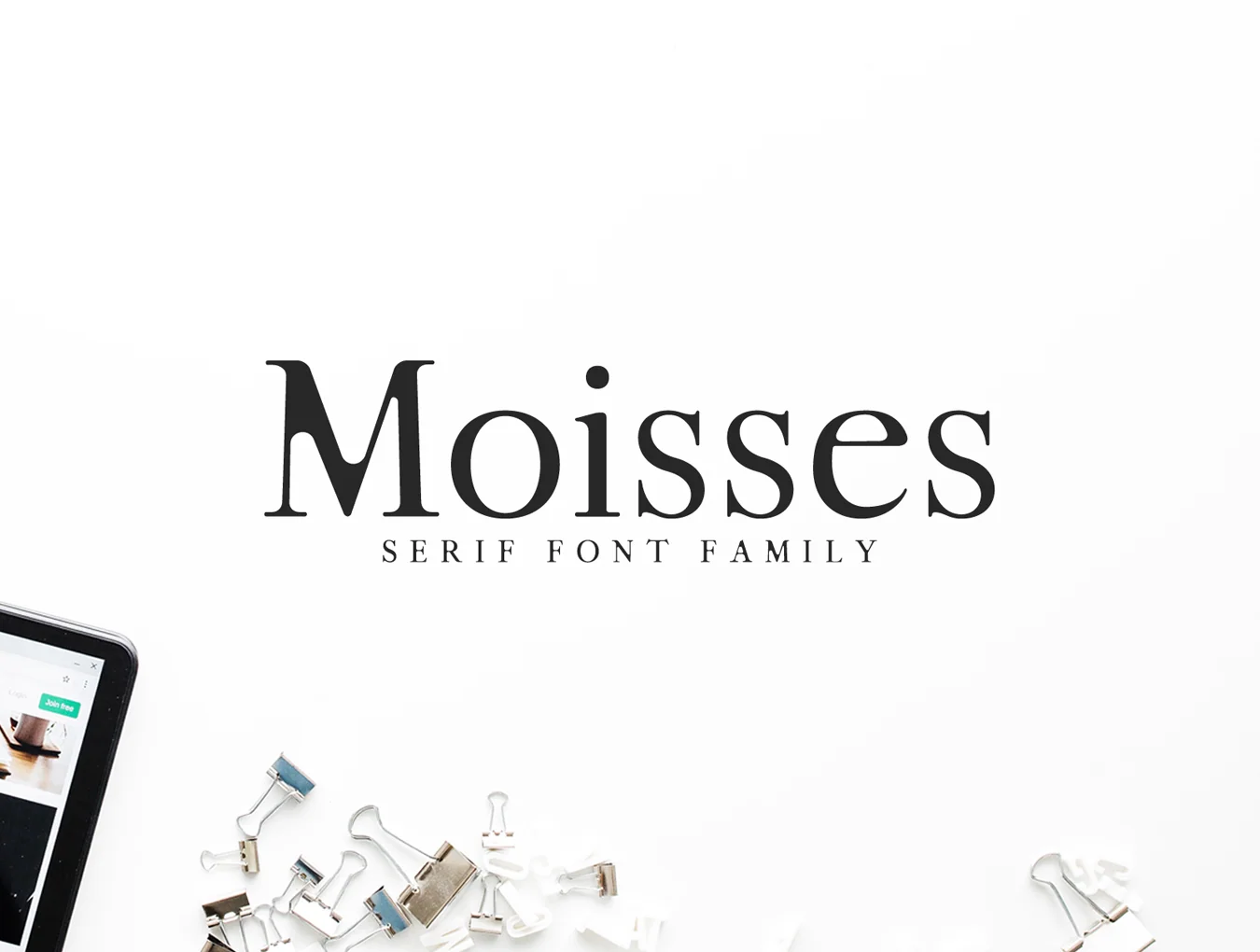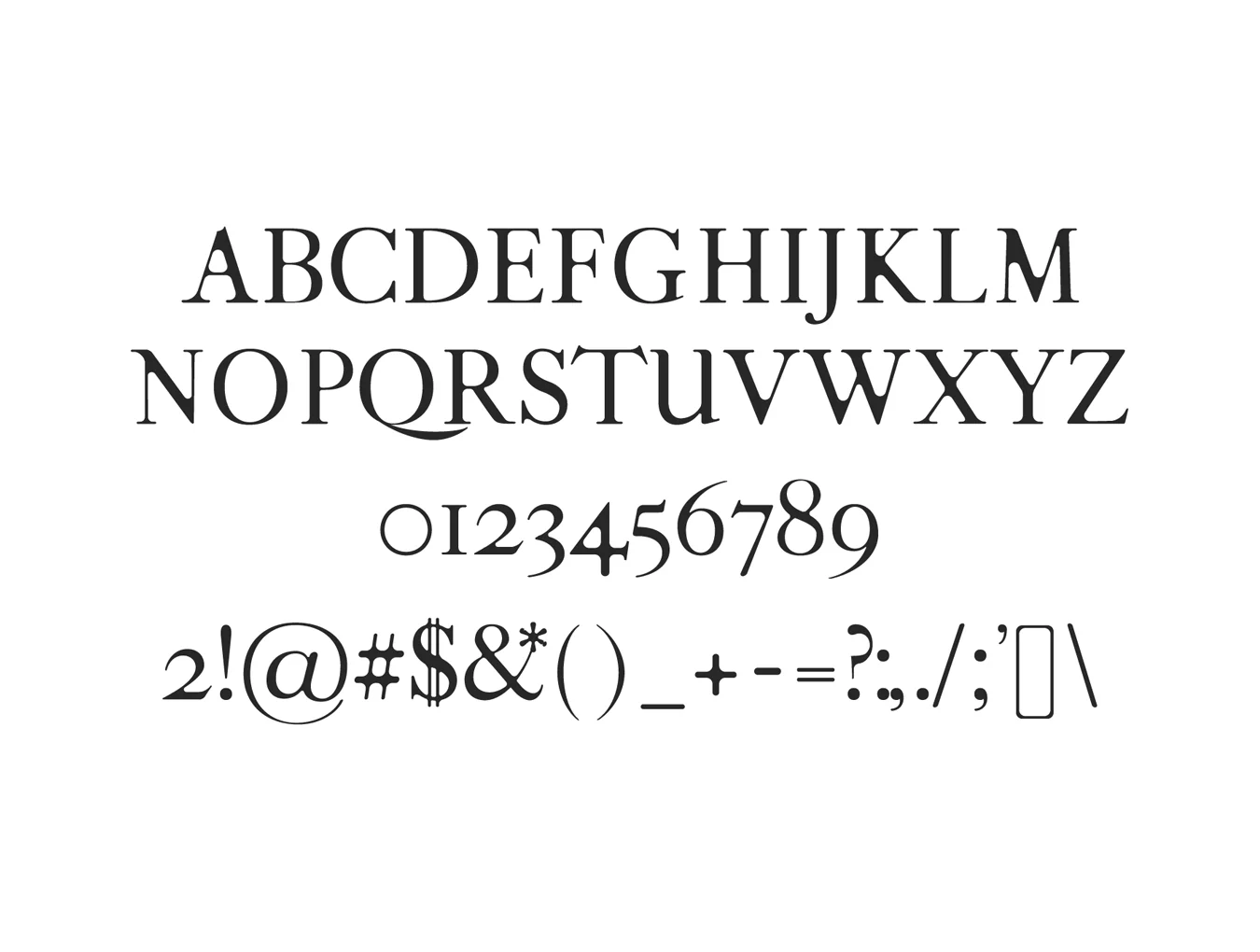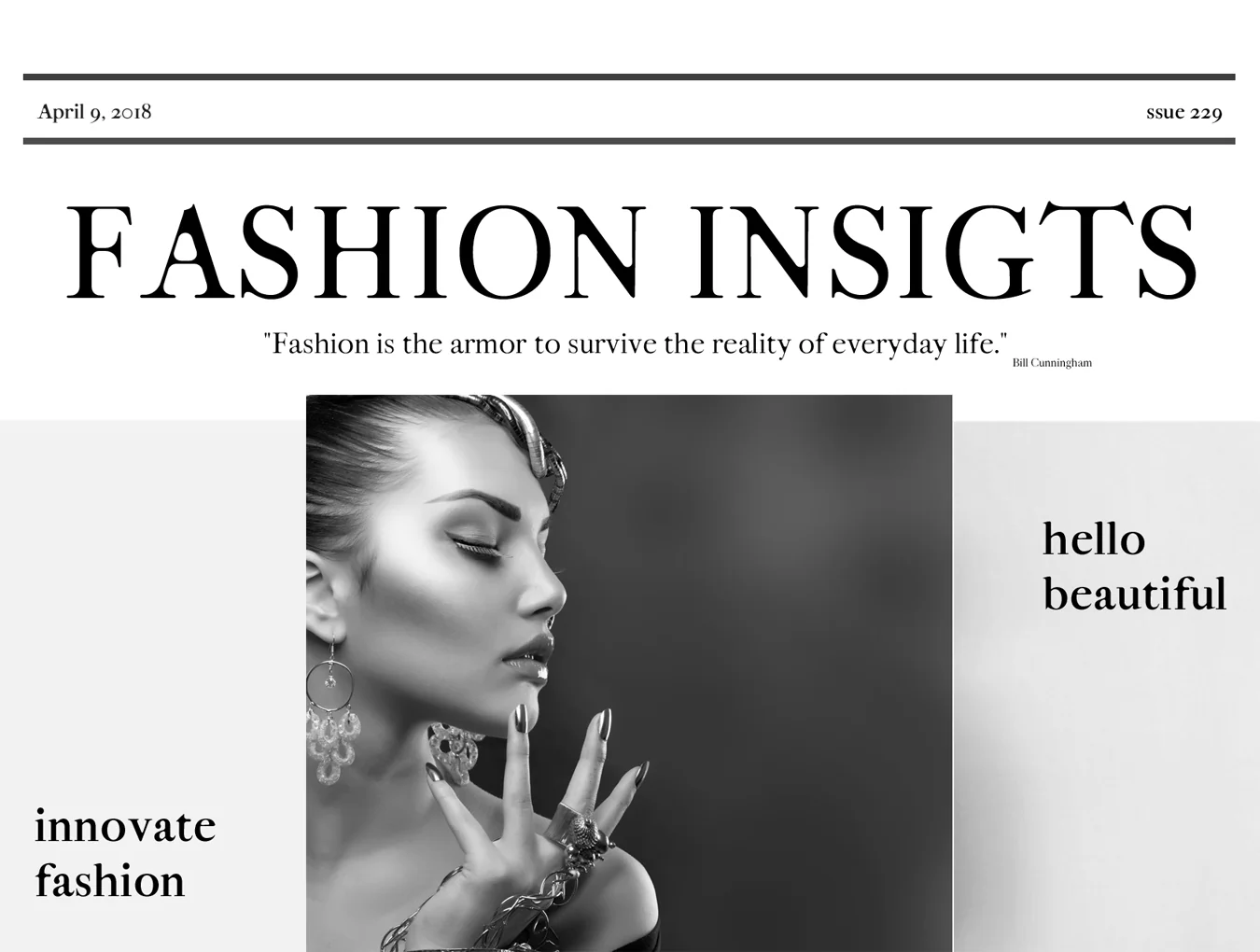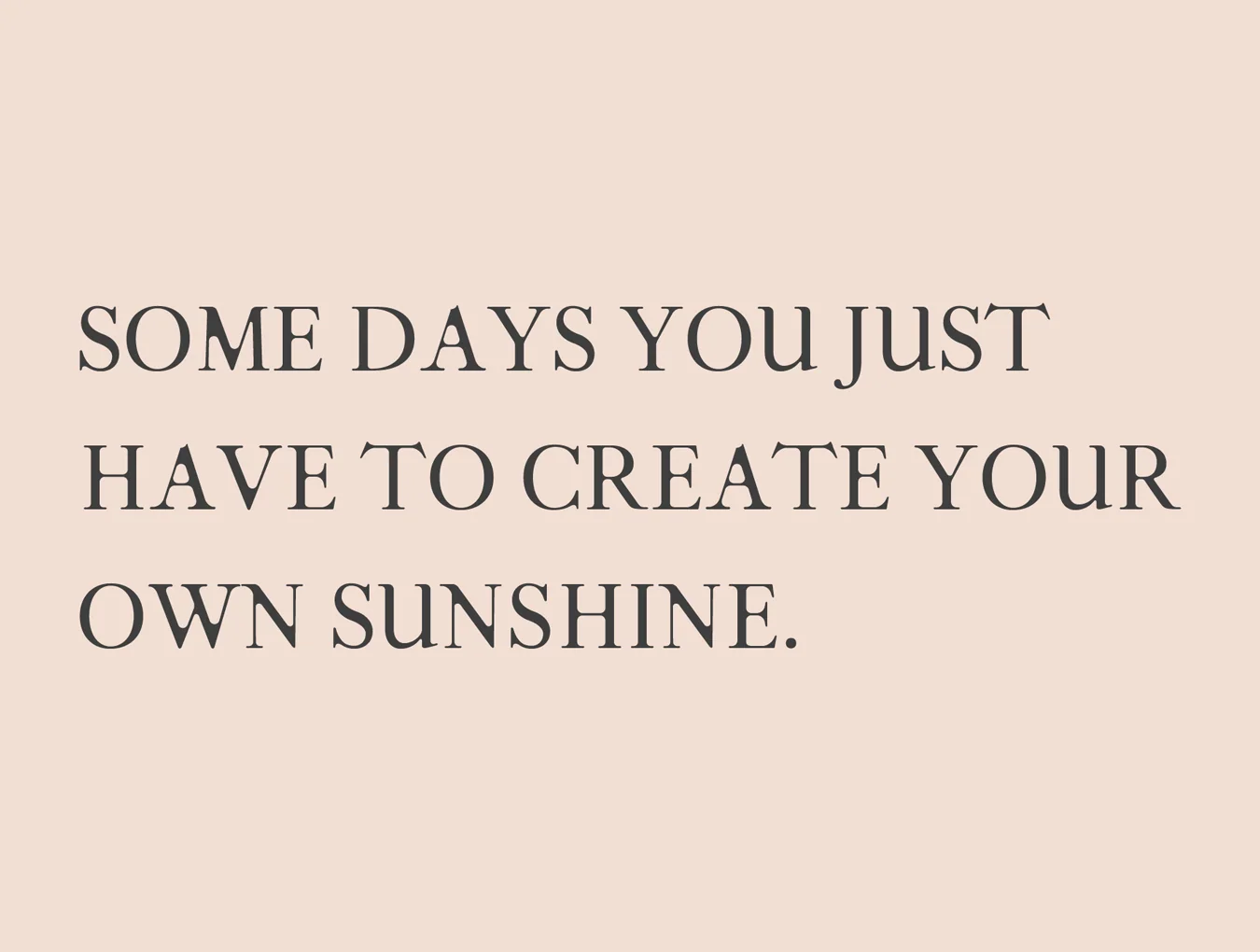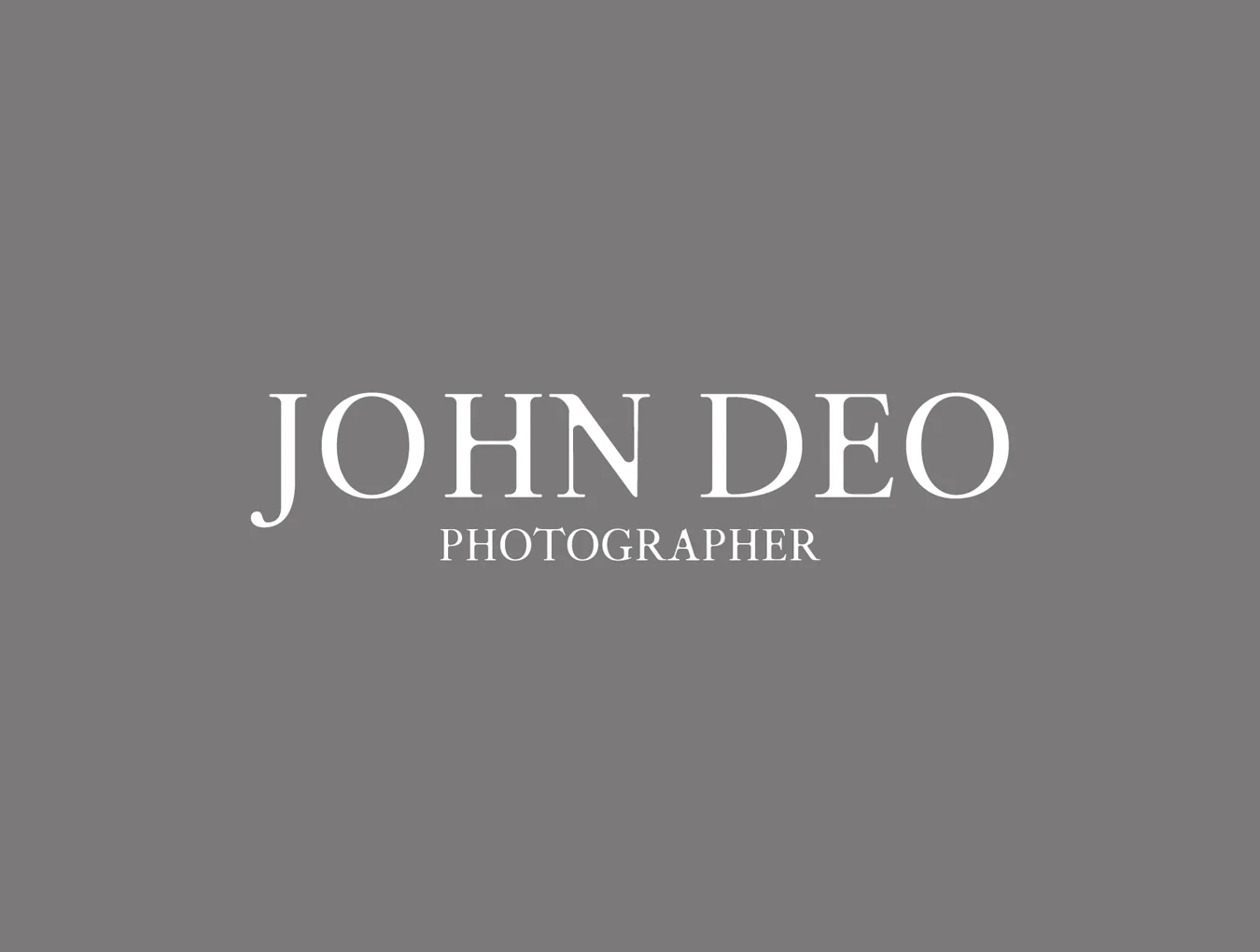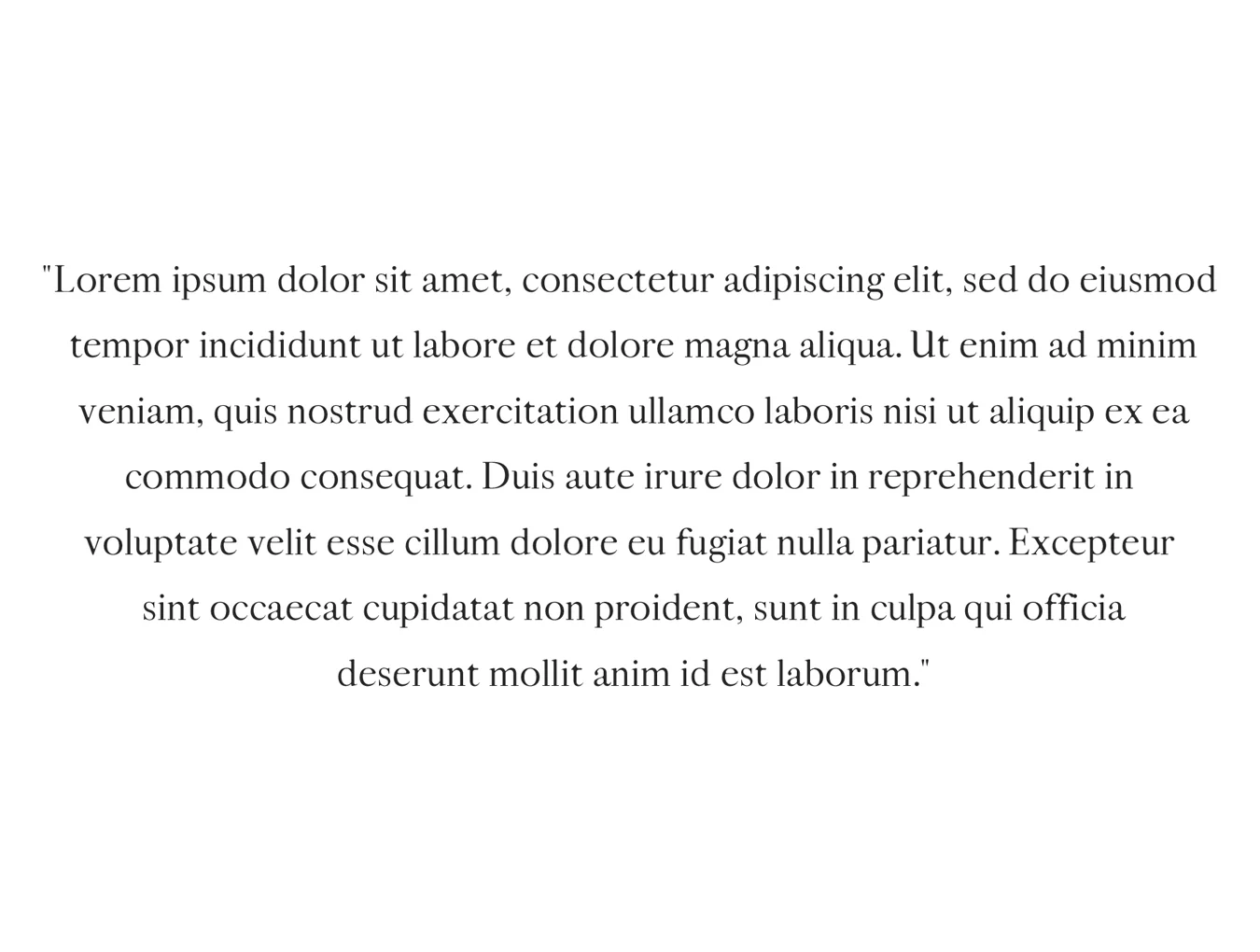
Moisses Serif Font Family
Moisses Serif Family Pack with 3 Font Weights
Serif font style
260 glyphs with numerals and punctuation
Regular, Light and Bold weight options
Moisses Serif Font Family is a clean serif typeface with softly rounded forms. It includes three weights, each supplied with essential glyphs and non-English characters. Ideal for presentations, posters, magazines, titles, business cards, web layouts, invitations, logos, books, headers, branding, and many creative projects.